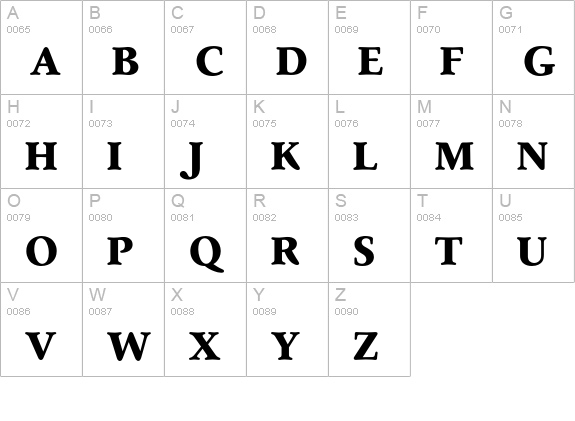
Seneca R Font Details
Introducing Seneca R Font, a stunning typeface that exudes elegance and sophistication. With its graceful curves and fluid lines, this font is perfect for projects that require a touch of refinement and class. Seneca R Font is not only visually appealing, but it also offers a wide range of versatility. Whether you're designing a logo, creating a wedding invitation, or crafting a magazine layout, this font will effortlessly elevate your designs to new levels of beauty. But the best part? Seneca R Font is completely free! That's right - you can download this incredible font without spending a dime. It's readily available for download at FontsMarket.com, ensuring that you have easy access to this gem of a typeface. Designed with utmost attention to detail, Seneca R Font brings together the perfect balance of legibility and artistic flair. The carefully crafted letterforms flow seamlessly, creating a harmonious and captivating visual experience. This font is a true embodiment of timeless elegance, making it ideal for a wide range of design projects. From high-end branding to elegant invitations, Seneca R Font will never fail to impress. So why wait? Discover the beauty and versatility of Seneca R Font today. Download it for free at FontsMarket.com and let your creativity soar to new heights.